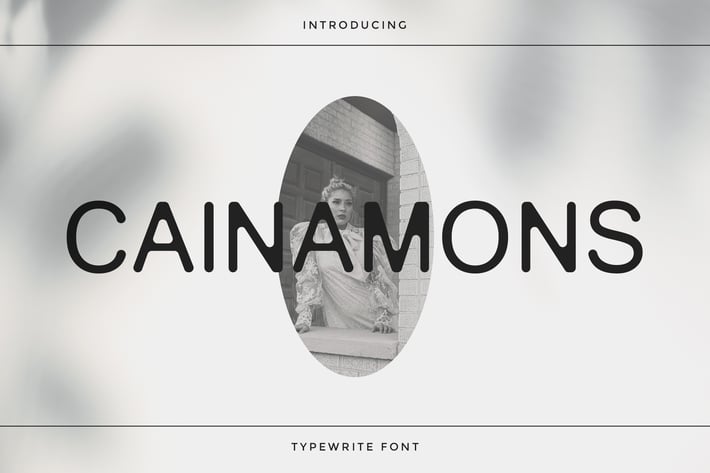
Cainamons - Sans Serif Font
Cainamons is a vintage font. It has elegant, minimal, classy, and modern. It’s a great font for fashion, apparel projects, signature, album cover, logo, branding, magazine, social media, & advertisements, but also works great for other projects.
- Basic Latin A-Z and a-z
- Numbers
- Punctions